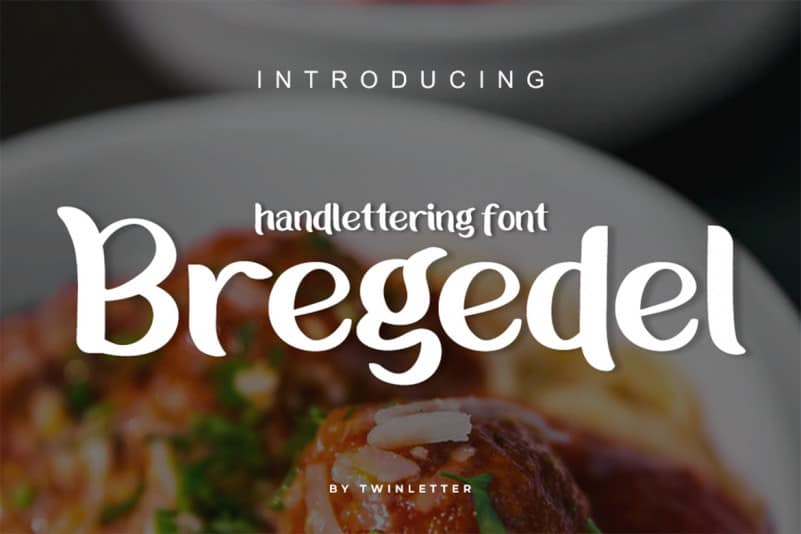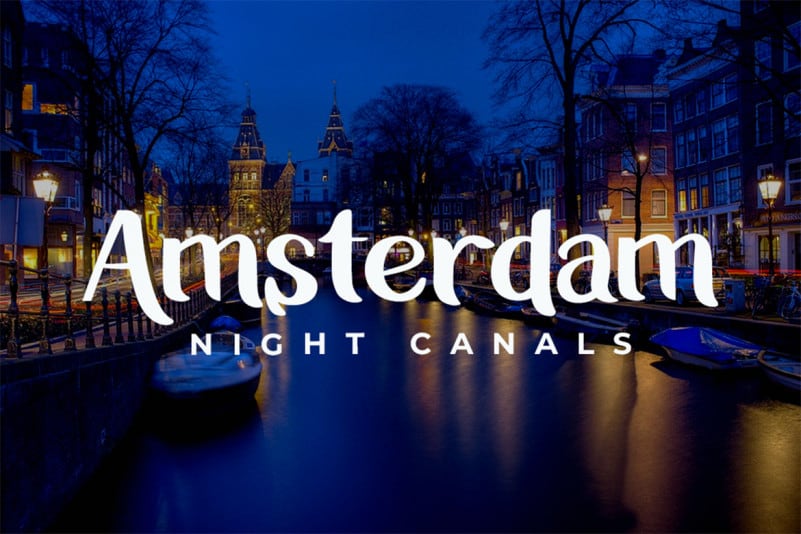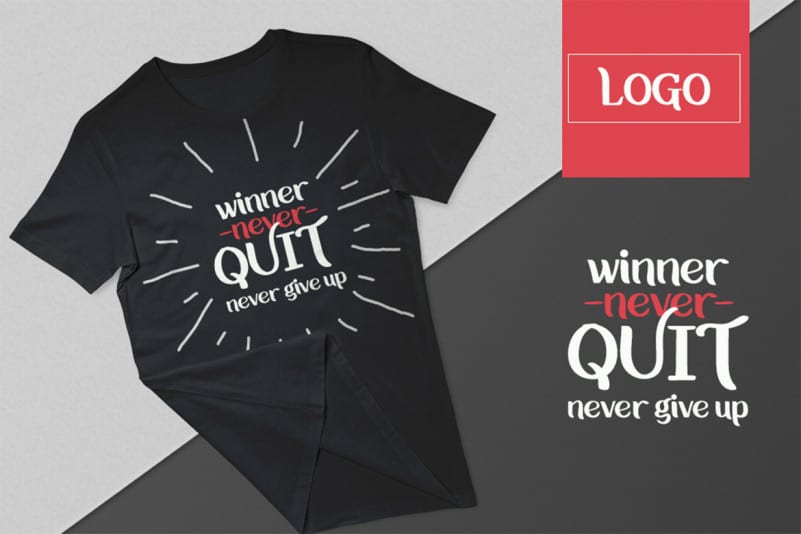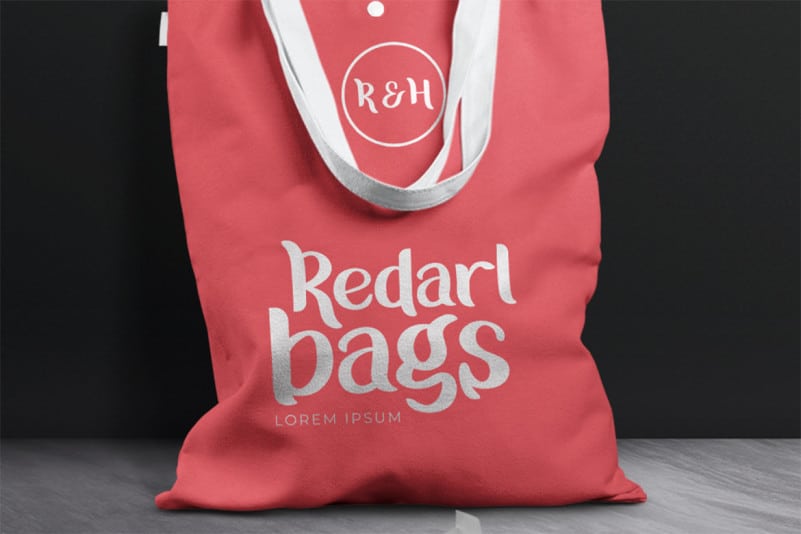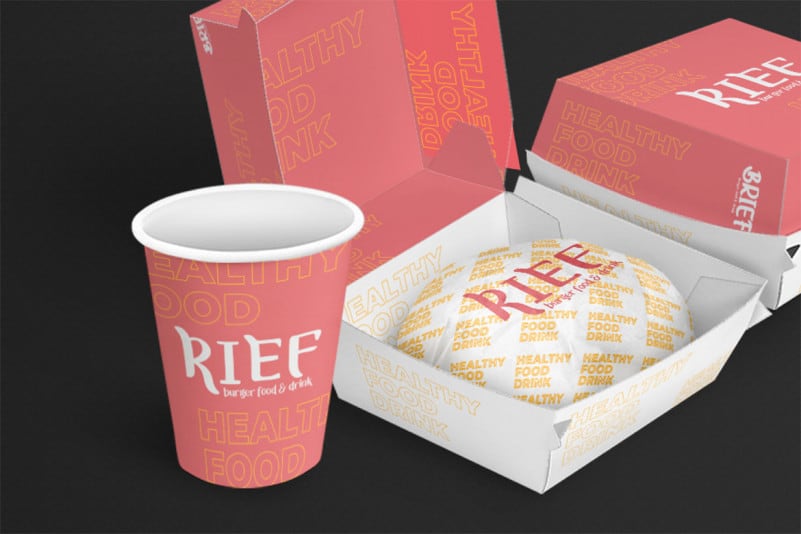
Bregedel Handwritten Font
Bregedel Handwritten Font is a script typeface that is connected with clear style and dramatic movements. This font comes with uppercase letters, lowercase letters, numbers, punctuation marks, and so many variations on each character including alternating opentypes, common binders and additions to make you customize your design. Perfect to use for Logotype, Letterhead, Posters, Clothing Designs, Labels and all designs that require handwriting